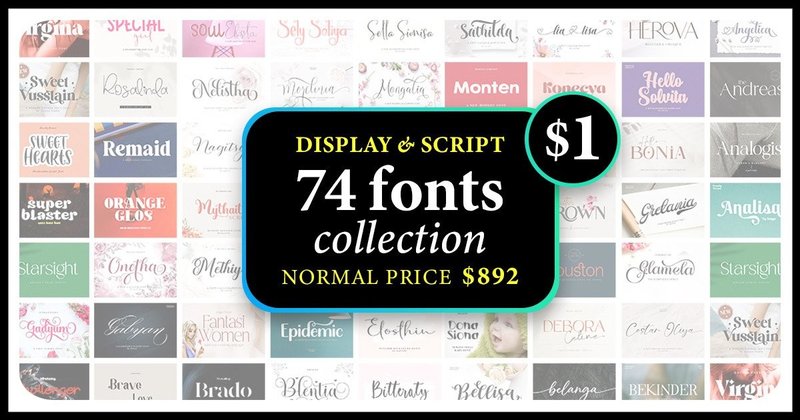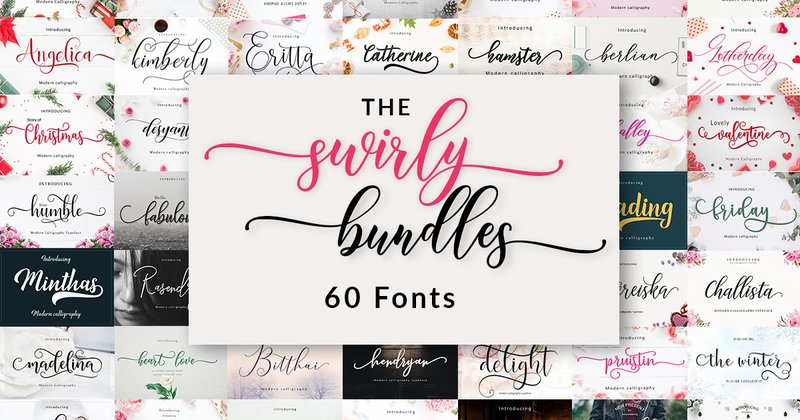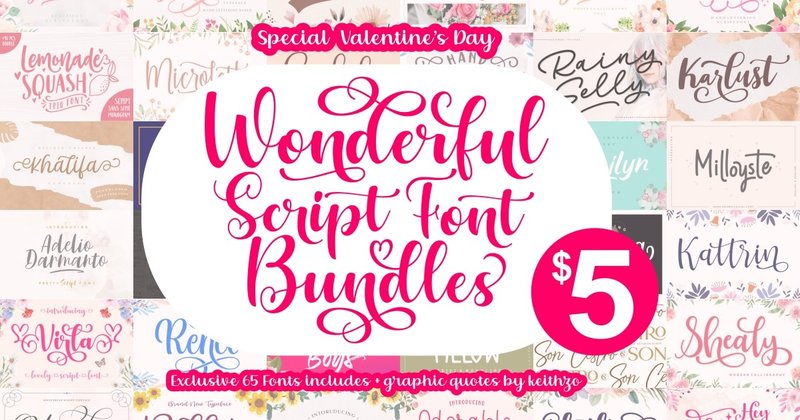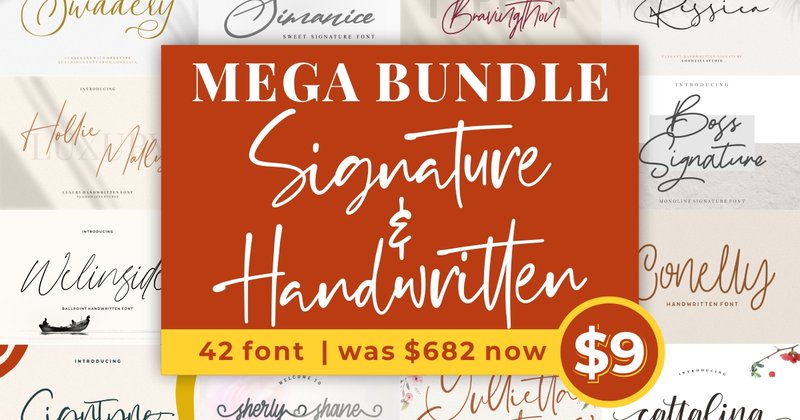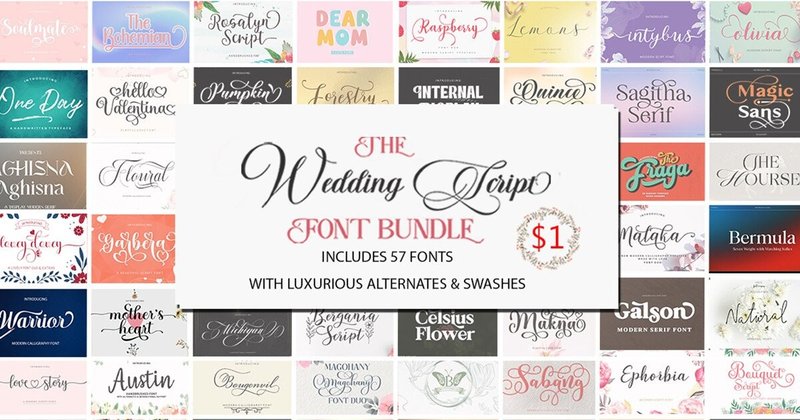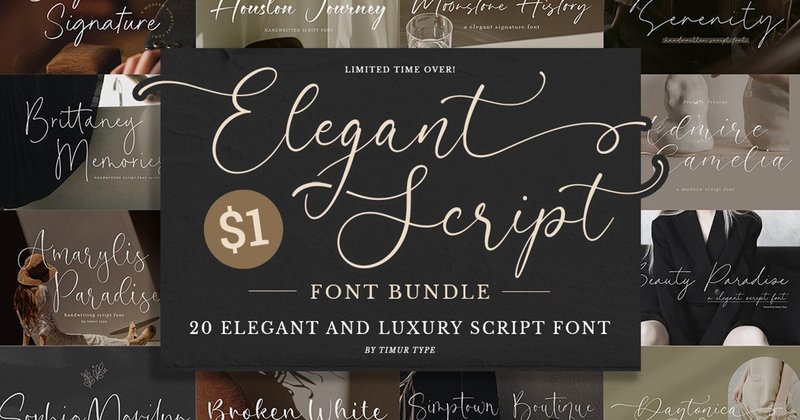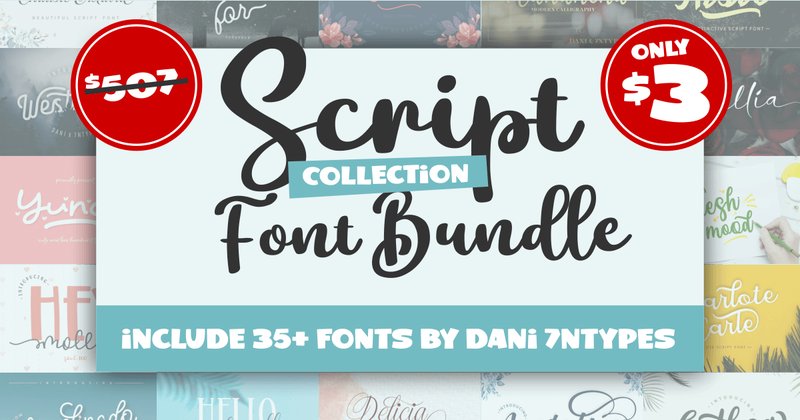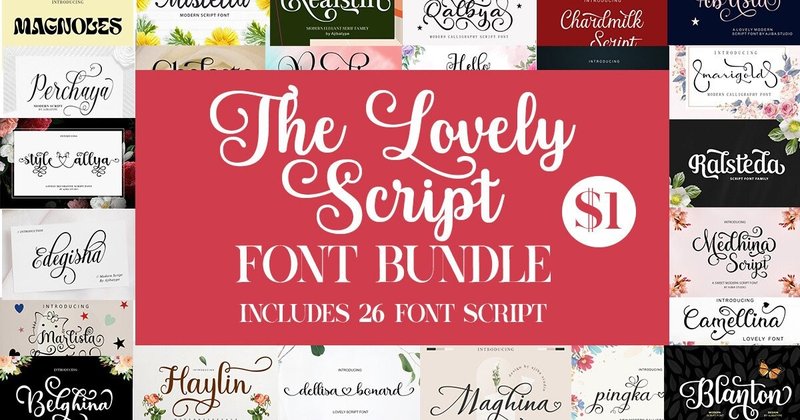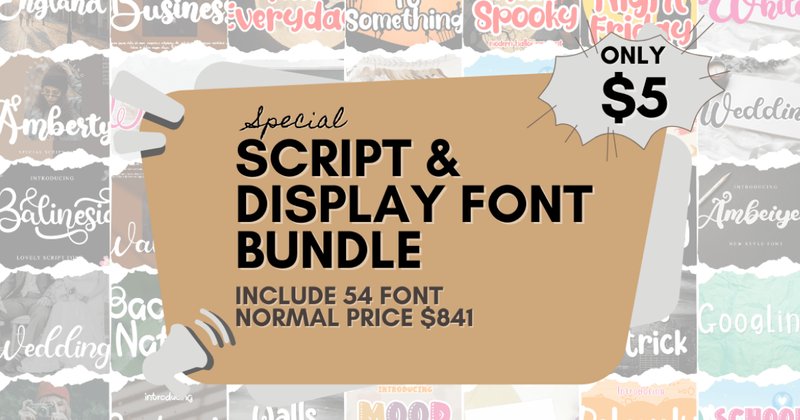
Client needs wedding invitations by Friday and your font library has three script fonts that all look the same? These 21 bundles give you 20–74 typefaces per purchase — modern calligraphy, brush scripts, vintage swash, casual handwritten. Install once, cover every brief for the next two years.
Top 21 Script Font Bundles — 2026 Edition
| Display & Script Collection | 74 | Display + script mix | Largest bundle, multilingual | Complete type library in one purchase |
| Swirly Fonts Bundle | 60 | Script with swirls & ornaments | PUA encoded, Cricut-friendly | Crafters + wedding stationery designers |
| Wonderful Script Bundle | 53 | Calligraphy, brush, vintage, monoline | Bonus serifs + quote graphics | Designers needing widest style range |
| Wedding Script Bundle | 57 | Formal calligraphy + romantic scripts | Deep wedding-specific selection | Wedding stationery & event designers |
| Mega Script & Handwritten | 42 | Signatures + casual handwritten | Widest range: formal to casual | Branding designers needing versatility |
📚 Mega Libraries — 42–74 Fonts, Complete Typographic Systems
When you need a font for every brief — not just today’s project — these bundles build a permanent library rather than solving a single problem.
1. Display & Script Font Collection — 74 Fonts Covering Display + Script Styles, Multilingual, Extensive OpenType
The largest bundle in this roundup at 74 fonts — and the only one that covers both bold display typefaces and flowing scripts in equal depth. Where most bundles focus on script only, this one gives you the complete pairing system: headline display fonts + script accents + body-text compatible weights. Multilingual support included.What’s Inside:
- 74 fonts — display and script styles in a single purchase · extensive OpenType features (alternates, ligatures, hundreds of glyphs) · multilingual support
- Both modern and classic aesthetics covered — one library for varied client aesthetics
- Freelance designers with multiple clients across different industries who need one purchase that covers branding, editorial, packaging, and wedding work without buying separate bundles per project
- Design agencies building a shared team font library — the display + script combination means less supplemental purchasing for different project types
- International project designers who need multilingual character support without relying on separate system fonts for non-Latin characters
2. The Swirly Fonts Bundle — 60 Script Font Families with PUA-Encoded Swirls & Ornaments, Cricut-Optimized
60 script font families with PUA-encoded extras — decorative swirls, flourishes, and ornaments accessible without a glyph panel. The PUA encoding is the practical differentiator: you can type extra characters directly in Cricut Design Space and Silhouette Studio without needing Adobe software to access alternates. Clean line construction optimized for cutting machines.What’s Inside:
- 60 script font families — PUA encoded (swirls and ornaments accessible by keyboard in any software) · craft-machine optimized clean lines
- Full range: delicate hairline scripts through bold expressive styles
- Cricut and Silhouette crafters who need PUA encoding to access decorative alternates directly in Design Space without exporting to Illustrator first — this is the specific technical feature that makes this bundle worth buying over non-PUA alternatives
- Wedding stationery designers who use ornamental swirls and flourishes extensively and need them keyboard-accessible rather than panel-accessible
- Vinyl and HTV apparel crafters building a font library specifically for cutting machine workflows where PUA encoding prevents glyph-access issues
3. Wonderful Script Font Bundle — 53 Fonts Across Calligraphy, Brush, Monoline & Vintage Styles + Bonus Serif Fonts & Quote Graphics
53 fonts spanning four distinct sub-styles — modern calligraphy, monoline, brush script, and vintage letterforms — plus bonus serif companion fonts and pre-built quote graphics. The bonus assets are the differentiator: you get ready-made quote compositions alongside the raw fonts, which cuts project time for social media and print work.What’s Inside: